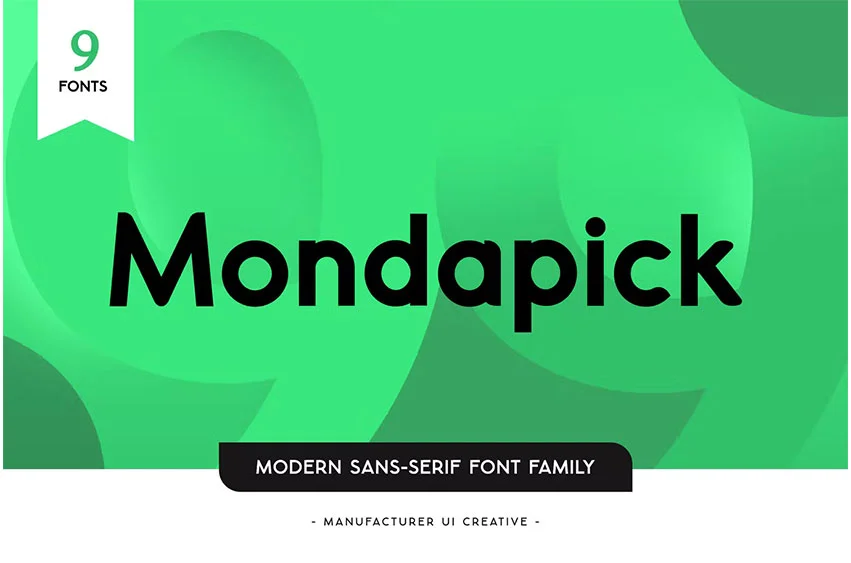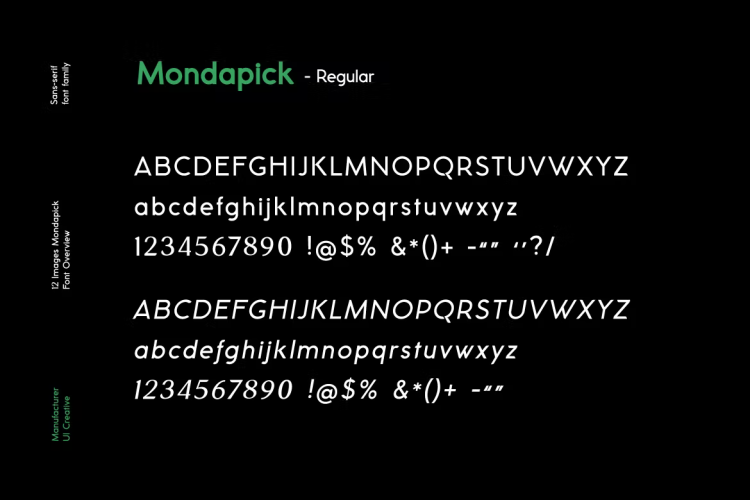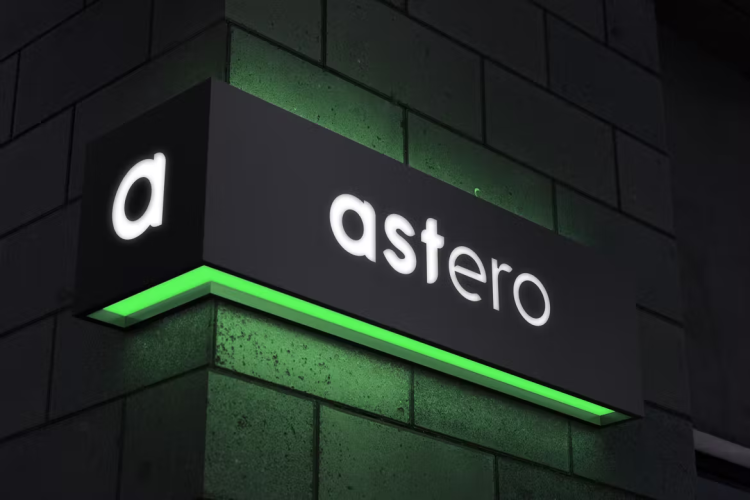
Mondapick Font
Mondapick Font Sans Serif Font Family comes with 9 different weights. Modern Sans Serif font that feels beautiful classy, elegant, and modern. This font is perfectly suited for a wide variety of projects, including signature, stationery, logo, wedding, typography quotes, magazine or book cover, website header, clothing, branding, packaging design, and more. Also fashion-related branding or editorial design displays both masculine and feminine qualities.
Mondapick Font is a Modern Fonts font that brings a professional and versatile look to your projects. Mondapick Font Sans Serif Font Family comes with 9 different weights .